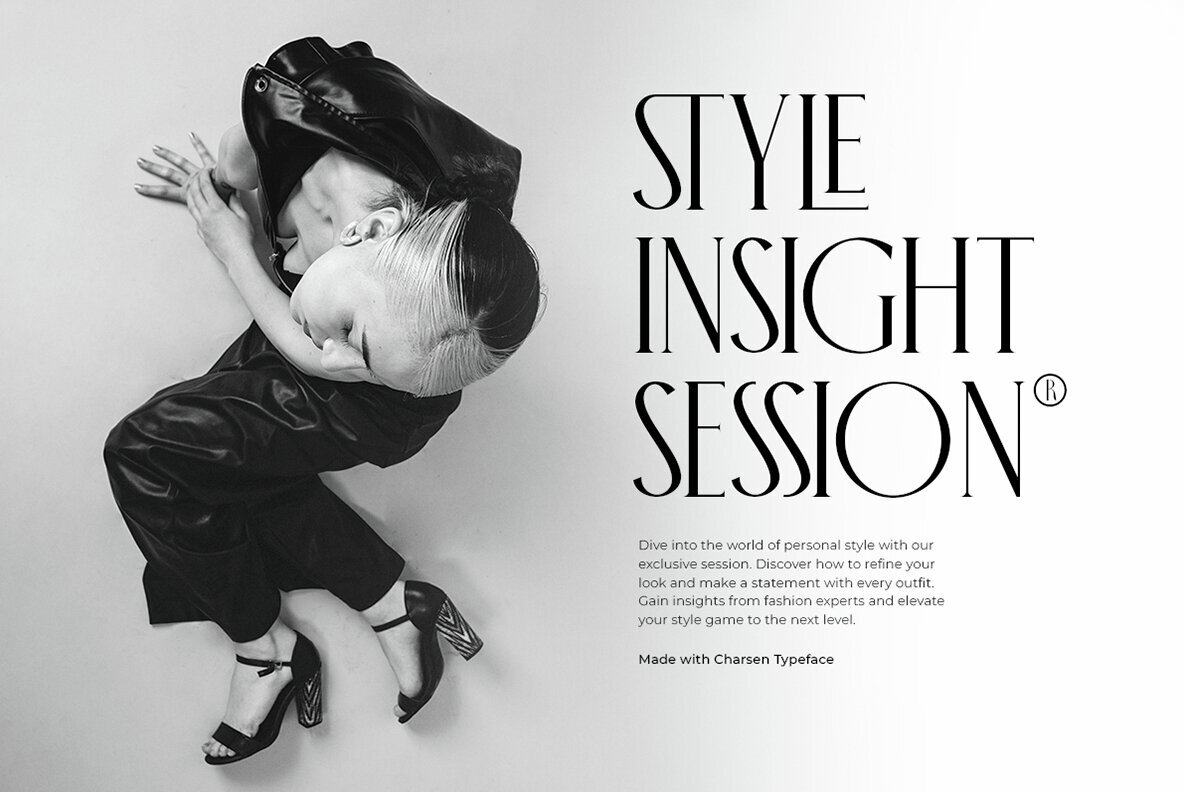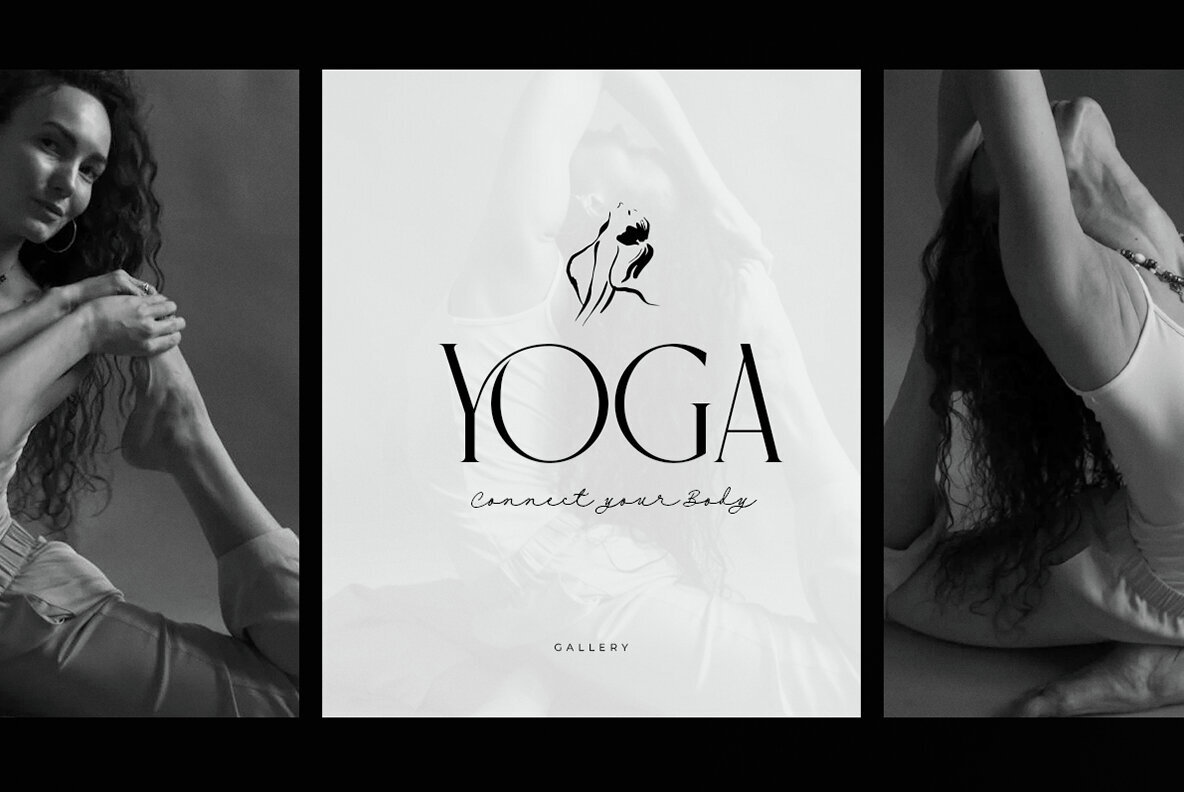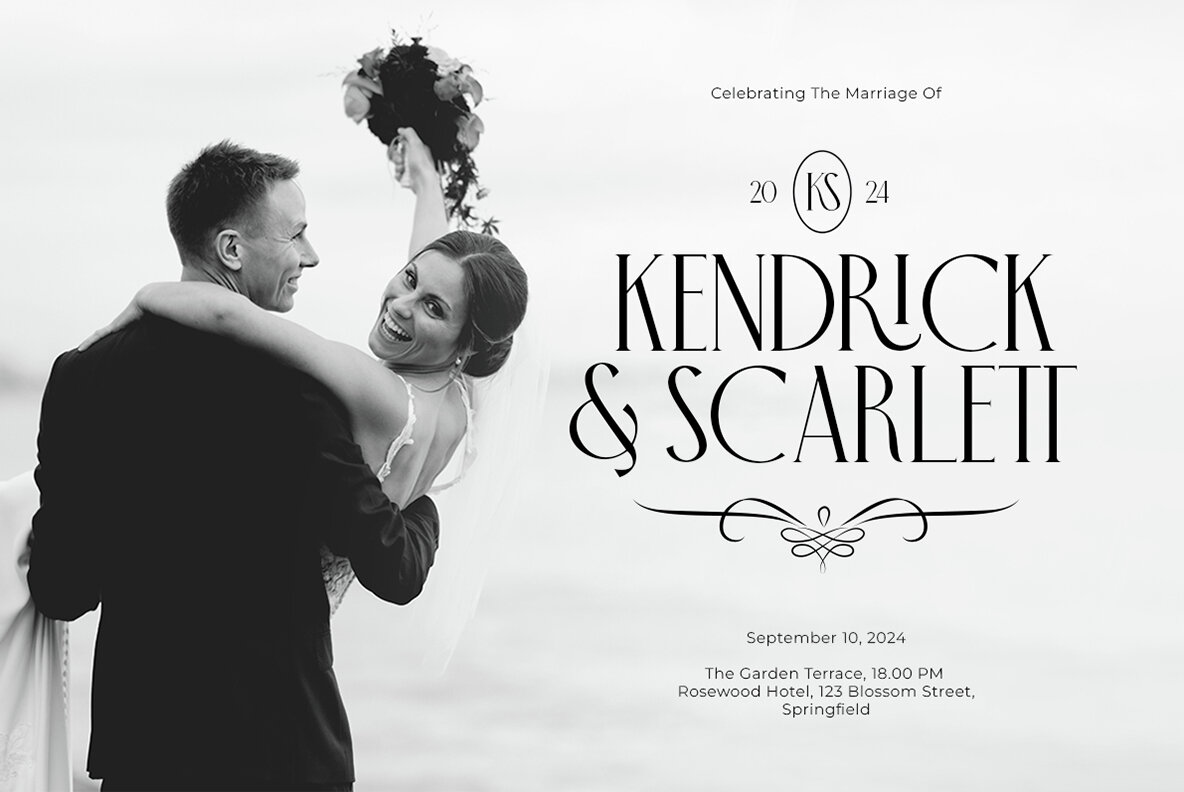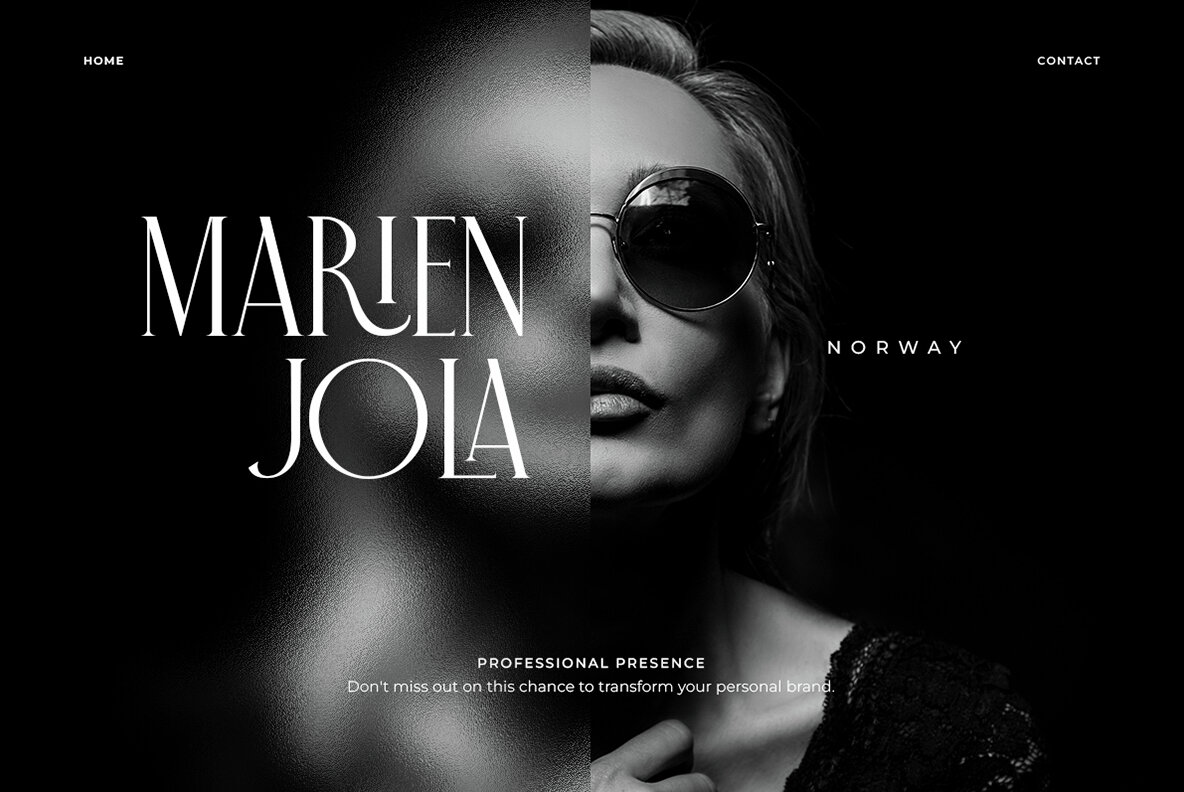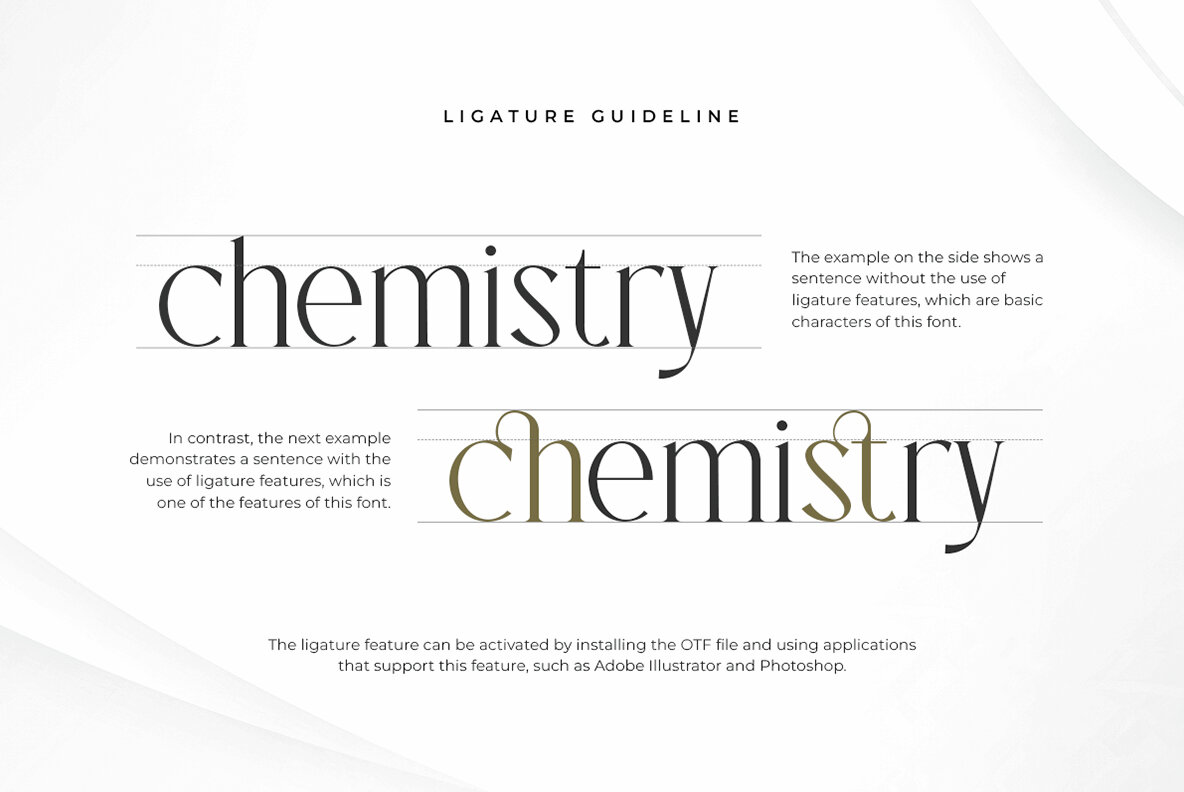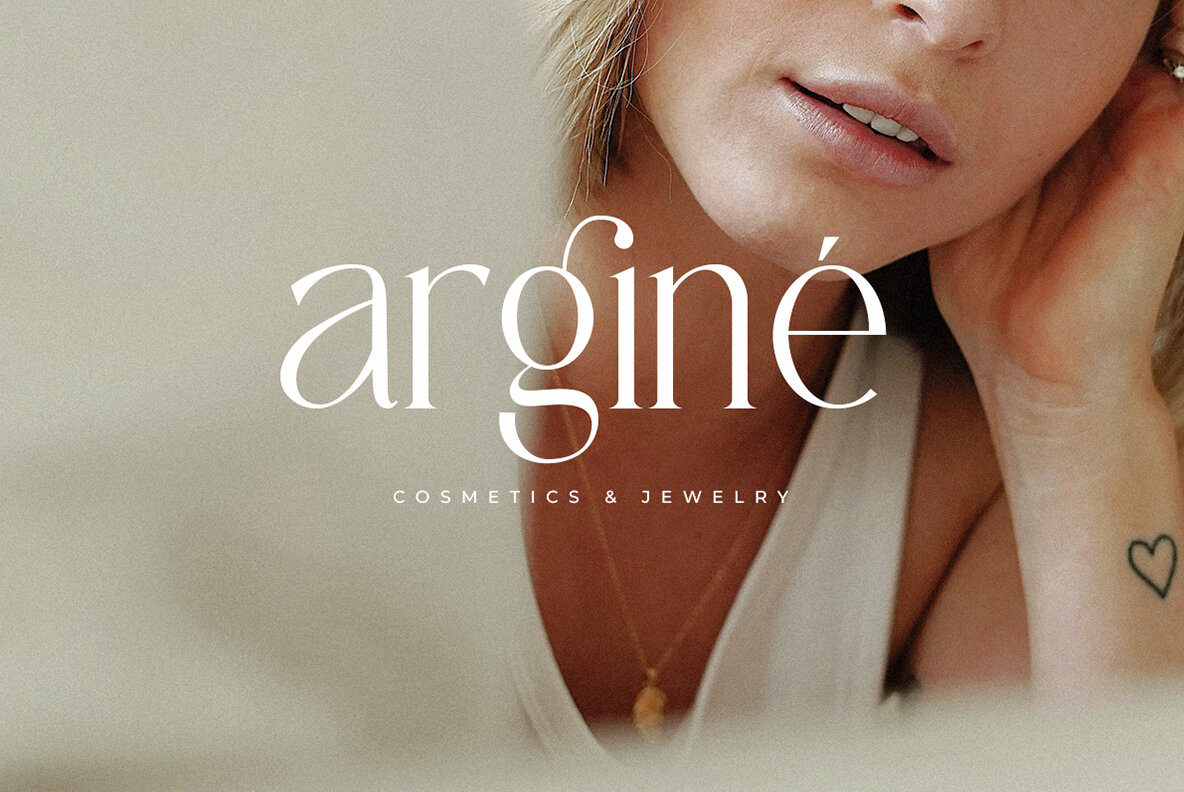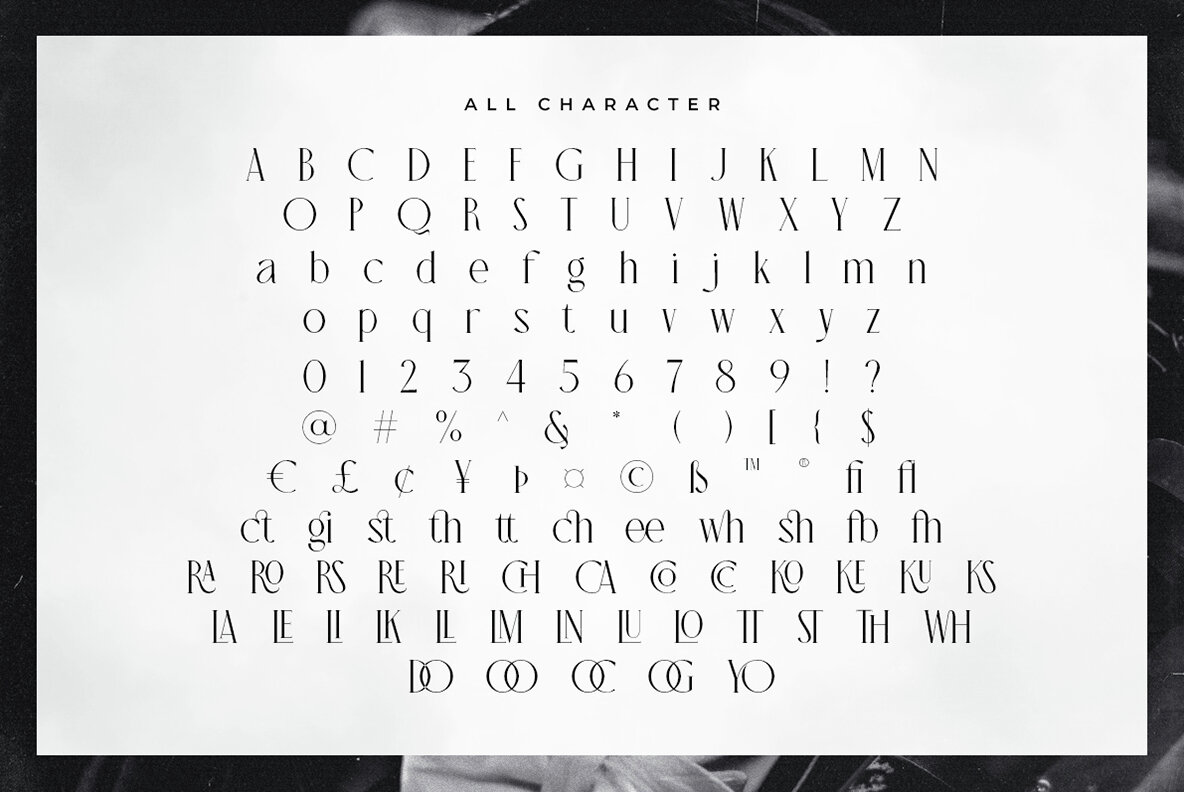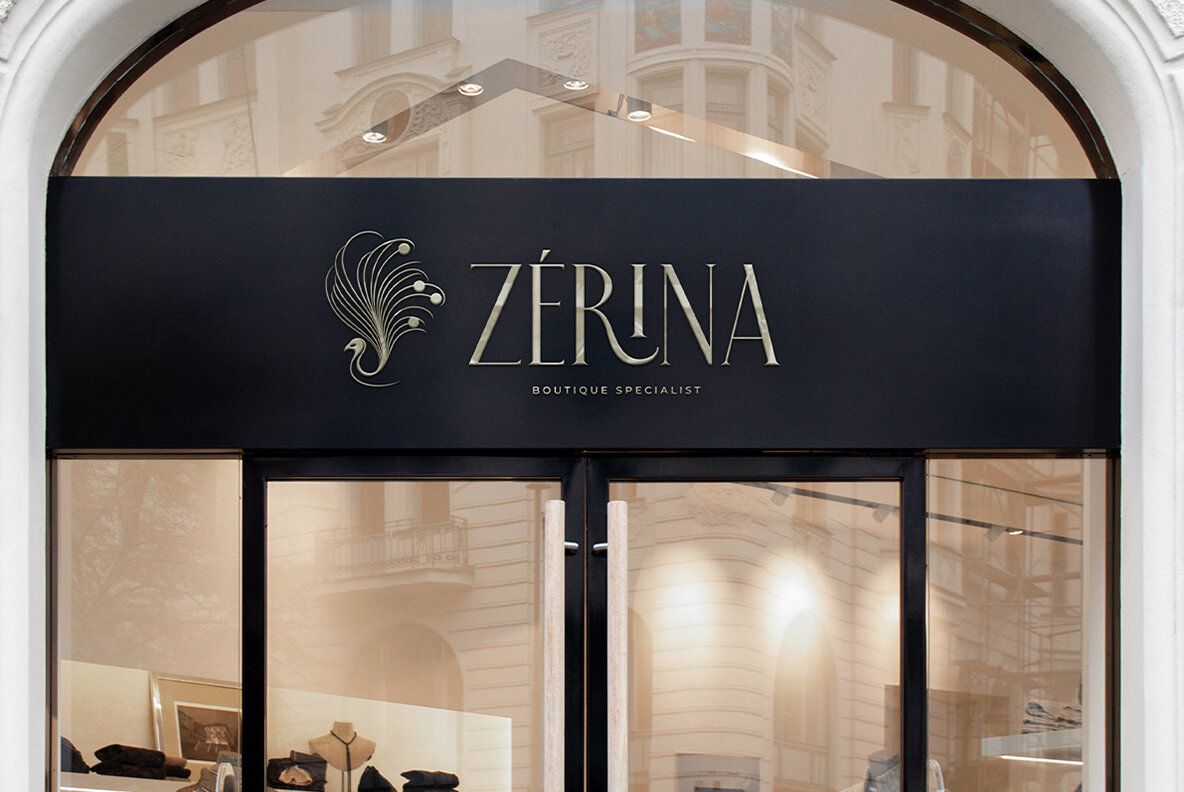
Charsen Font
Charsen Regular
Charsen is an elegant and luxurious typeface perfect for premium branding. With beautiful ligatures and refined details, it adds sophistication to logos, magazine covers, and marketing materials. Its blend of classic and modern styles ensures versatility and high-end appeal. Elevate your designs with Charsen's exquisite charm.